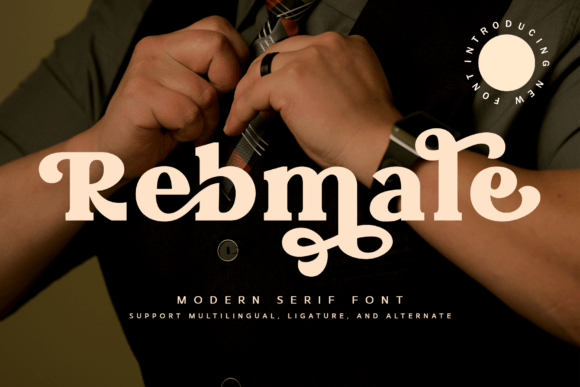
Introducing Rebmale Font, the epitome of sophistication and style. As an E-commerce SEO expert, I am here to captivate your senses and present you with the best font for your magazine needs. Created by the renowned Moodtype, this serif modern and bold typeface is a true gem that will elevate your designs to new heights.
Rebmale Font is more than just a font; it is a work of art. Its classic and unique style sets it apart from the rest, making it the perfect choice for those seeking elegance and luxury. Whether you're designing a logo, a book cover, or a movie title, Rebmale Font will leave a lasting impression on your audience.
What sets Rebmale Font apart from other fonts is its decorative alternate and beauty ligature. These intricate details add a touch of charm and sophistication to your designs, making them truly stand out. Imagine the beauty of your wedding invitations, the allure of your fashion brand, or the elegance of your magazine layout – all brought to life with Rebmale Font.
But that's not all. Rebmale Font is incredibly versatile and can be used for a wide range of purposes. Its versatility makes it suitable for lettering, quotes, labels, packaging, and even spelling of names. The possibilities are endless, and your creativity knows no bounds with Rebmale Font by your side.
We understand the importance of making a strong impression on your audience, and Rebmale Font is here to help you achieve just that. Its captivating and eye-catching design will leave your viewers in awe, making them eager to learn more about your brand. With Rebmale Font, you can effortlessly convey your message and create a memorable experience for your audience.